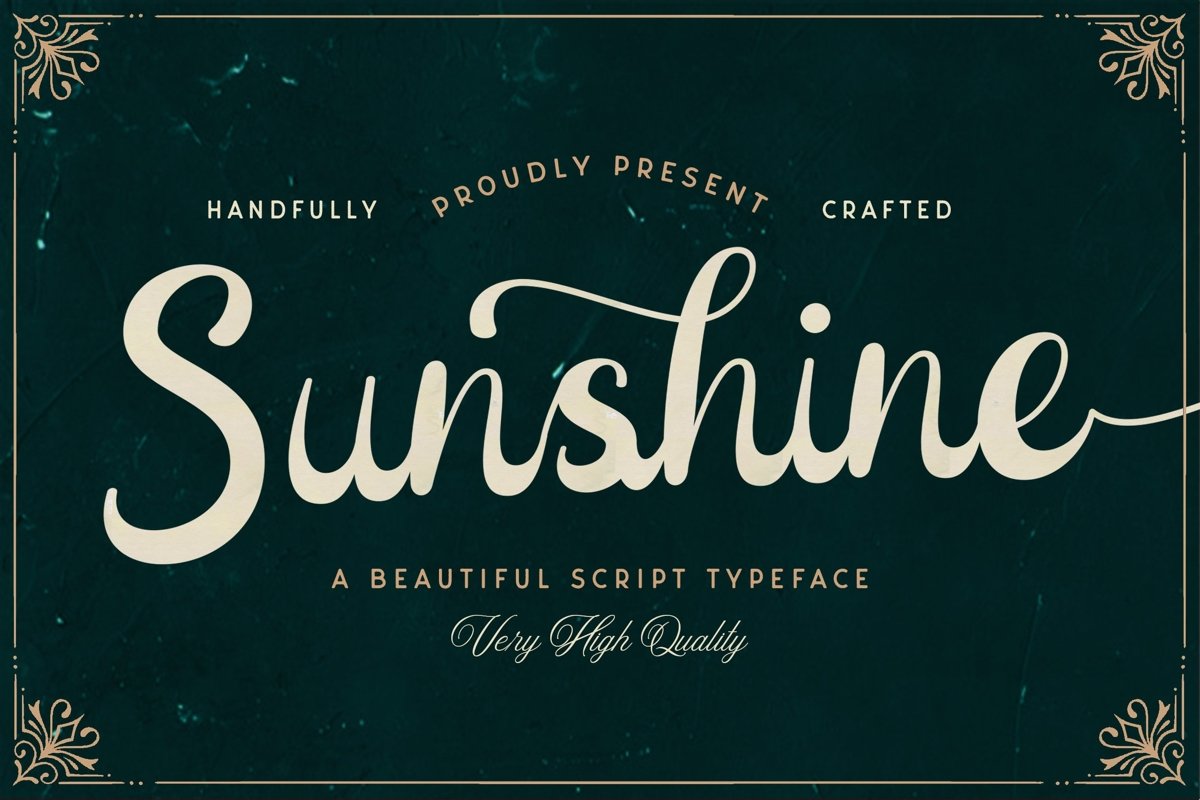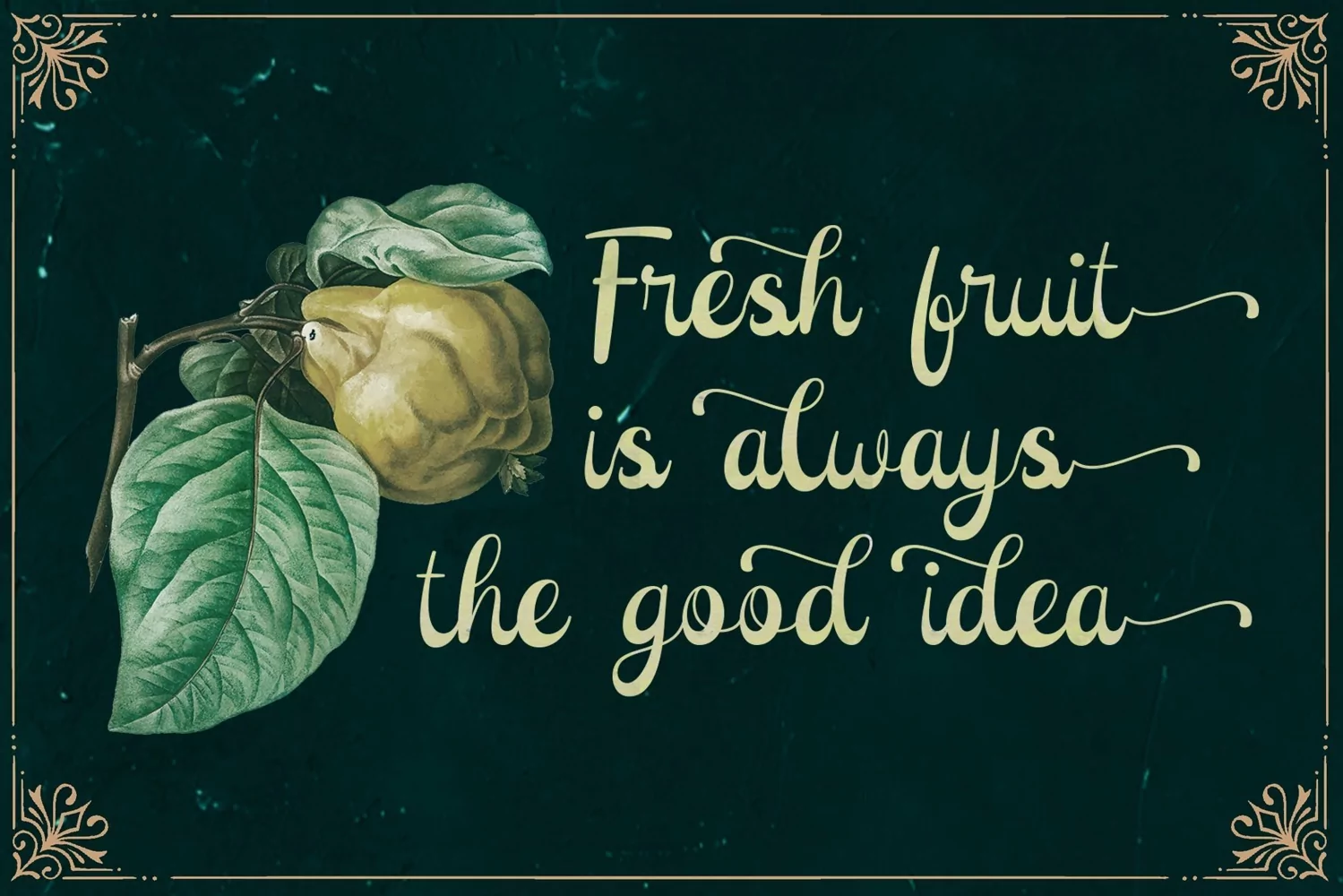
Sunshine is a beautiful script typeface. Perfect for display, poster, tittle, header, print, t-shirt, logo, logotype, badges, emblem, merchandise, packaging, wedding needs, crafting needs, and many more.